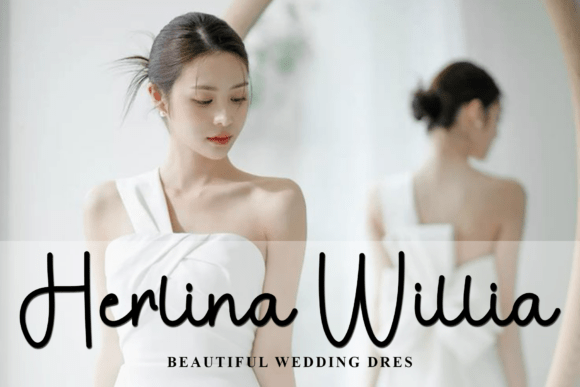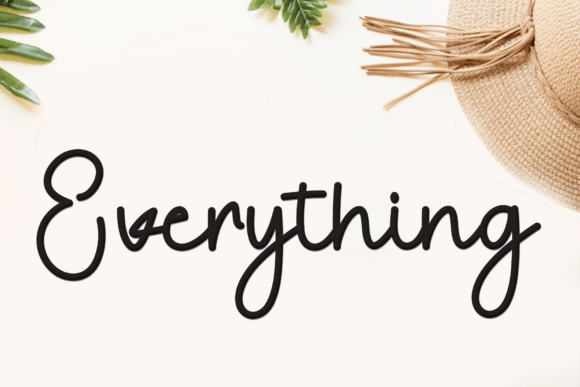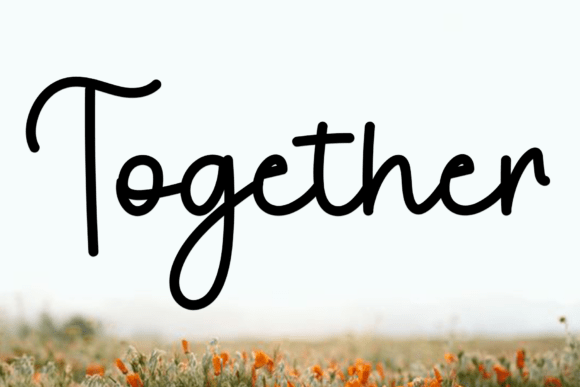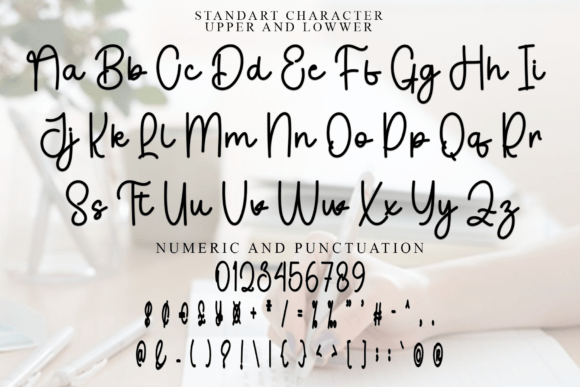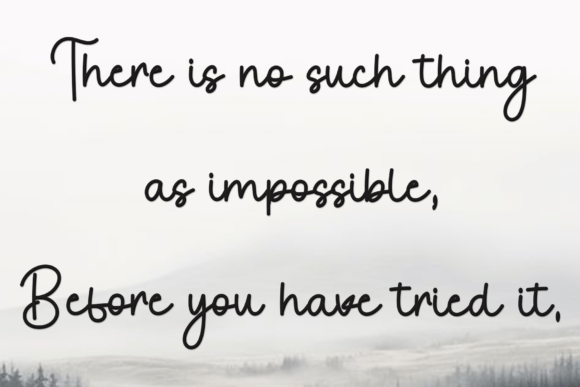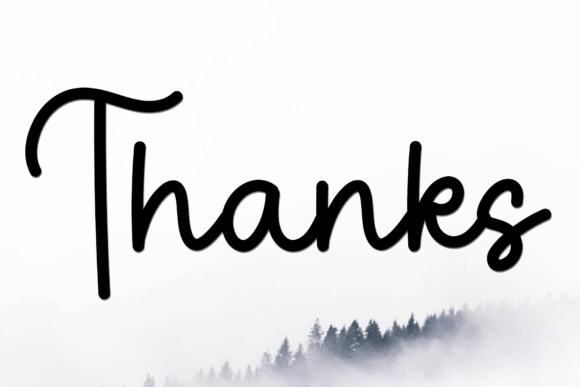
Introduction to School Handmade Font
Do you remember the feeling of scribbling notes in the margins of your notebook, the sound of pencils scratching against the paper, and the smell of fresh notebooks? Those carefree days of childhood are what inspired the creation of the School Handmade Font, a sweet and friendly handwritten font that captures the essence of handmade charm.
As a designer, you’re always on the lookout for the perfect design resource to bring your creative project to life. And what’s better than a high-quality, free download that adds a personal touch to your work? The School Handmade Font is just that – a versatile and unique font that can be used on a transparent background, making it perfect for any design project.
Key Features of School Handmade Font
- High-quality, unique design for creative projects and educational materials, making it a valuable design resource.
- Features a unique, hand-drawn style that evokes a sense of nostalgia and whimsy, perfect for educational and creative projects.
Honest Review: School Handmade Font
I recently had the chance to work with the School Handmade Font and I must say it’s been a delightful experience. This design resource is perfect for any creative project that requires a high-quality, hand-drawn feel.
Here’s what I like about the School Handmade Font:
- ✨ The transparent background makes it easy to use on any color scheme, giving you total control over the design.
- ✨ The font’s unique, handwritten style adds a personal touch to any text, making it perfect for branding and marketing materials.
- ⚠️ The font may not be suitable for large blocks of text, as the handwritten style can be a bit distracting.
School Handmade Font is a high-quality, free download design resource ideal for creative projects. Its unique, handwritten style makes it perfect for adding a personal touch to your designs.
Tips for Getting the Most Out of School Handmade Font
For optimal results, use School Handmade Font on a transparent background to make it stand out. You can also combine it with other fonts to create a unique design style.
School Handmade Font is ideal for a variety of creative projects, including:
• Invitations and event cards
• Social media graphics and posts
• Blog posts and articles
• Print materials, such as flyers and brochures